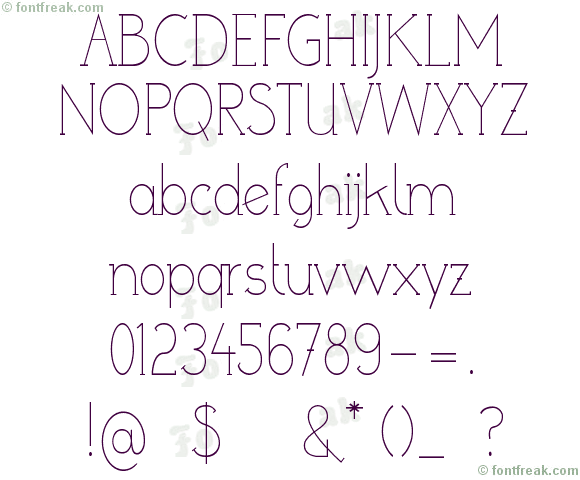
poor weekdays serif
About poor weekdays serif
The Poor Weekdays Serif font, designed by Roland Huse, is a striking serif typeface that embodies a modern yet timeless aesthetic. Characterized by its slender stroke weight and subtle contrast, this font offers a refined elegance that makes it versatile for a variety of applications. The letterforms display a delicate balance of curves and sharp angles, with thoughtfully spaced characters that enhance readability while maintaining a sophisticated appearance.
Ideal for use in wedding invitations, Poor Weekdays Serif brings a touch of grace to formal announcements. Its unique character also shines in branding materials for boutique shops, where a distinctive yet approachable look is essential. For graphic designers crafting movie posters or event flyers, this font provides an elegant option that captures attention without overwhelming the viewer. Additionally, small business owners can utilize Poor Weekdays Serif in restaurant menus, adding an air of sophistication that elevates the dining experience.
The target audience for this font includes graphic designers, content creators, and small business owners who seek a stylish yet functional typeface. Whether you're designing for print or digital media, Poor Weekdays Serif offers the versatility to adapt to various design contexts while maintaining a cohesive aesthetic.
What sets the Poor Weekdays Serif font apart is its unique character and balanced design, making it a standout choice for those looking to enhance their projects with a touch of elegance. With its freeware license, users can easily access and incorporate this font into their work, making the "poor weekdays serif font free download" a valuable addition to any designer's toolkit. With its combination of style, readability, and versatility, Poor Weekdays Serif is sure to leave a lasting impression.